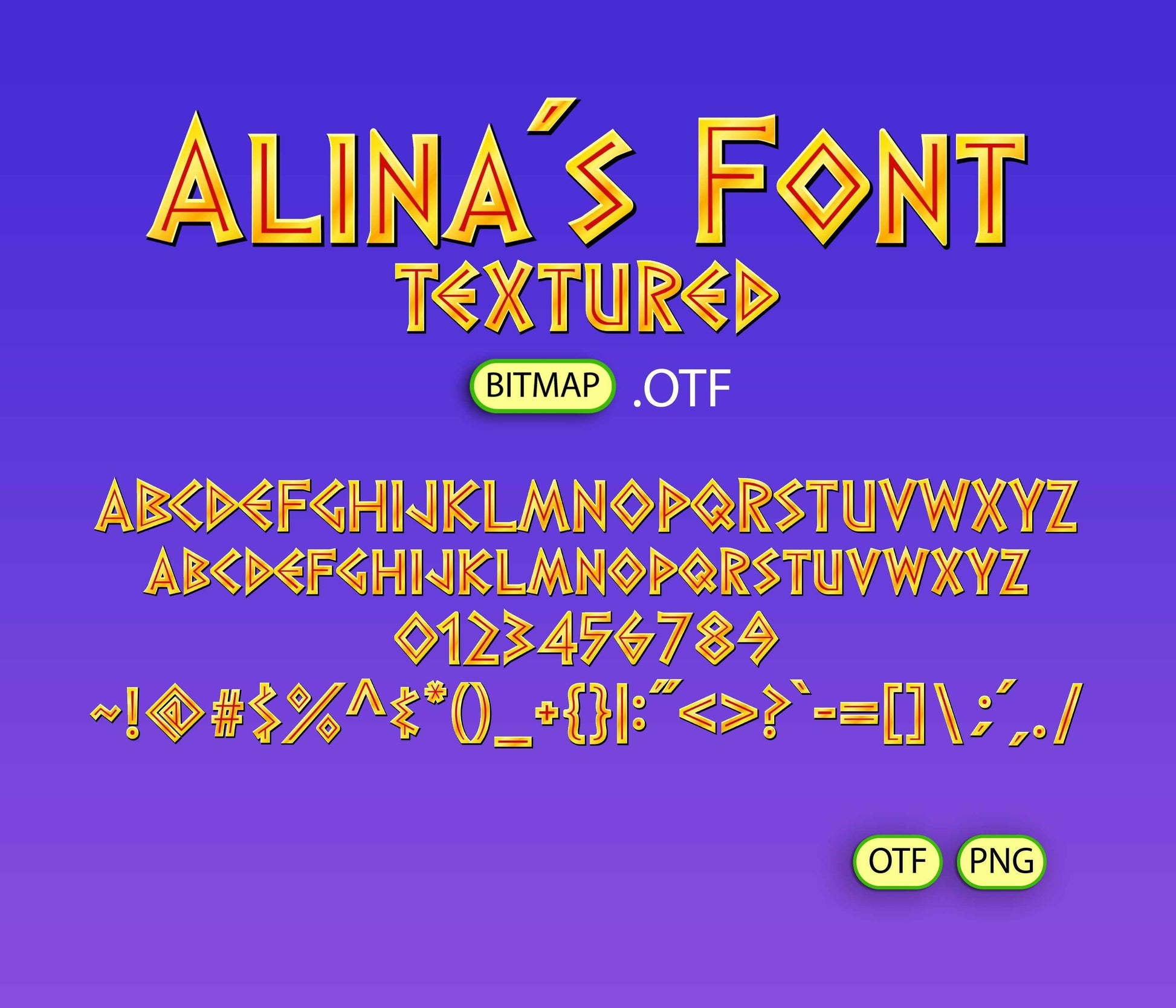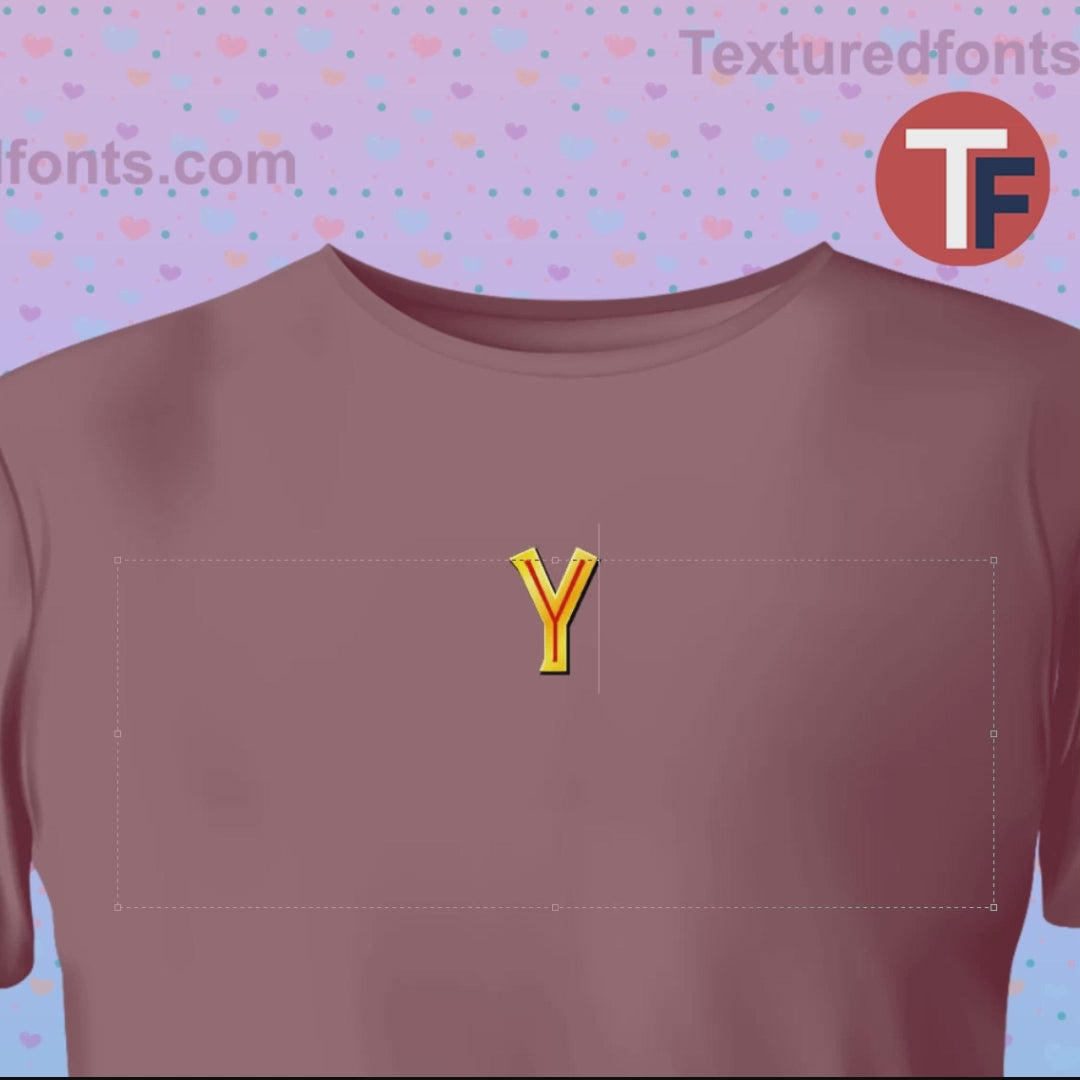
Heroic Greek Font Textured
Embark on a Mythical Journey with the Heroic Greek Font
Step into the legendary world of ancient Greece with our Heroic Greek font, crafted to echo the heroic and epic spirit of one of mythology's greatest figures. This font is perfect for creators looking to infuse their projects with the strength and adventure synonymous with legendary heroes. Whether designing promotional materials for a historical drama, themed event invitations, or engaging educational content, this font ensures your projects resonate with the grandeur and timelessness of ancient Greek tales.
Our Heroic Greek font features bold, commanding lines combined with classic touches that reflect ancient Greek artistry, making it ideal for a wide array of applications:
- Historical Documentaries: Enhance titles and graphics for film or television.
- Educational Materials: Create compelling presentations or worksheets for history or literature classes.
- Themed Events: Design invitations, banners, and signage for themed parties or theatrical productions.
- Merchandising: Produce merchandise like t-shirts, posters, and mugs celebrating Greek mythology.
- Book Publishing: Use in titles or chapter headings for books focusing on mythology or adventure stories.
Capture the Essence of Heroic Feats
This font not only captures the essence of legendary heroes' feats but also offers a powerful design tool that enhances the narrative and aesthetic impact of your projects. With its robust character set and compatibility with various software, including Canva, the Heroic Greek font enables you to bring a touch of mythological magic to all your creative endeavors. Prepare to inspire awe and admiration through every word and design that bears the Heroic Greek font, making each project as enduring as the myths themselves.